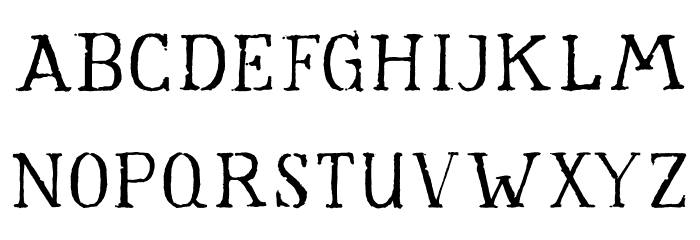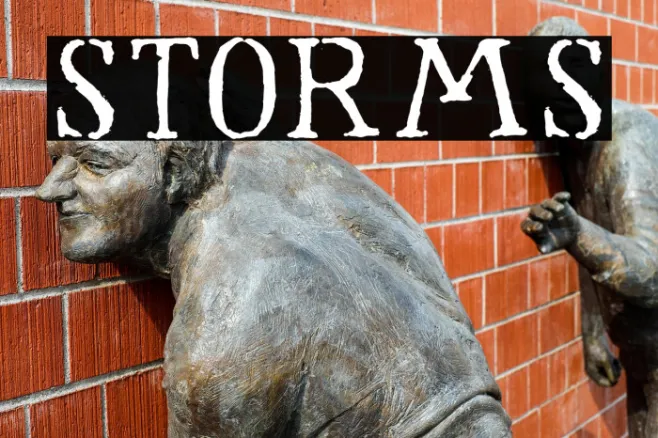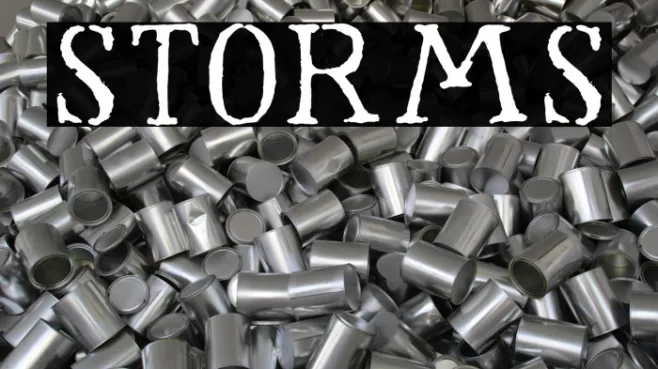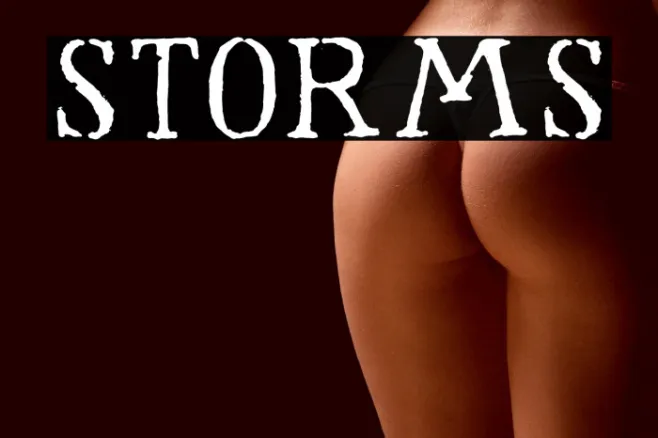
Storms Font
This font features a rugged and distressed appearance, reminiscent of vintage typewriter styles with a modern twist. The characters are bold and slightly irregular, giving them a hand-crafted feel. The uppercase letters are consistent in height, while the lowercase letters maintain a similar style with slight variations in stroke width. The numerals are clear and legible, matching the overall aesthetic. Special characters are included, maintaining the same distressed look, adding to the font's versatility. This font is ideal for projects requiring a rustic or antique touch, while still being readable and stylish.
A rugged, distressed font with a vintage typewriter aesthetic.
- Font: Storms
- No. of Characters:: 56
- Proposed Projects: Ideal for vintage-themed designs, posters, branding, and packaging that require a rustic or antique touch.
- Overall Style: Vintage